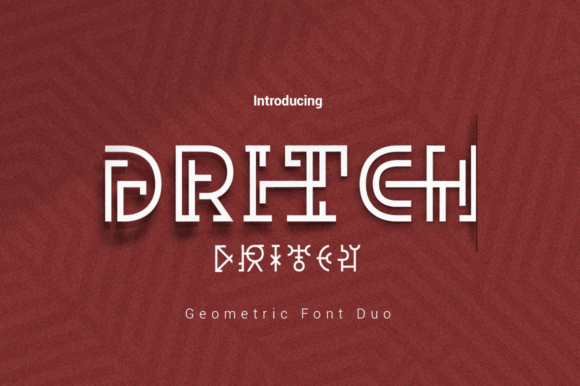
Dritch: A Mystical Display Font That Elevates Real Branding
It was 8 a.m. on a Tuesday—coffee lukewarm, label printer humming—and I was tweaking the final version of new lavender-sage candle labels for my small-batch shop. The scent was calming. The design? Not quite there yet. The previous font felt generic—friendly but forgettable, like background music you don’t remember hearing. That’s when I swapped it out for Dritch. Instantly, the label felt intentional. Not louder—but *clearer*. Like the product finally had a voice that matched its quiet confidence.
What Makes Dritch Feel So Distinctly “Done”
Dritch is a display font, designed not for paragraphs but for moments that need to land: a logo, a jar label, a social media quote overlay, or a boutique tag tied with twine. Its geometry is clean and modern—sharp angles softened just enough, circles perfectly balanced, spacing thoughtfully open—but its soul is unmistakably mystical. Think subtle celestial curves, gentle asymmetry in letterforms, and an elegant tension between precision and poetry. It doesn’t shout. It invites attention with quiet authority.
As a creative consultant who helps small businesses refine their visual identity, I’ve seen how much weight a single typeface carries. Dritch isn’t decorative clutter—it’s a strategic tool. When used on a skincare product label, it suggests care and craftsmanship. On a café menu, it adds warmth without sacrificing clarity. On an Instagram story announcing a seasonal collection? It makes your audience pause mid-scroll—not because it’s flashy, but because it feels *meaningful*.
Where Dritch Works Best (and Where to Pause)
Dritch shines brightest in short-form, high-impact contexts:
That said, Dritch isn’t meant for body text or long descriptions. It’s a display font, not a workhorse. For menus, product descriptions, or email newsletters, pair it with something legible and grounded—a friendly sans serif like Inter or Poppins, or a refined serif like Lora for contrast and balance.
Real Pairings That Just… Work
Typography harmony isn’t magic—it’s intention. With Dritch, simplicity wins. Here’s what I recommend:
The key is restraint: let Dritch lead, then support it with something that breathes easily beside it. No more than two typefaces per project keeps things cohesive and customer-friendly.
And yes—it works beautifully on mobile screens. I ran A/B tests on Instagram carousels: posts using Dritch for headlines saw noticeably longer dwell time. Not because it’s “trendy,” but because it feels *considered*. Customers sense that.
Why This Small Detail Actually Matters
When you’re running a small business—baking sourdough, blending botanicals, curating vintage finds—you’re not just selling a product. You’re offering a feeling, a promise, a point of view. Typography is one of the quietest, most powerful ways to reinforce that.
Dritch doesn’t make your brand “mystical” by default—it helps you communicate the mystique already in your process: the care in your pour, the intention behind your ingredients, the stillness in your studio. It’s a premium font that behaves like a trusted collaborator: reliable, expressive, and quietly confident.
So next time you’re refreshing a label, updating a banner, or designing your first batch of thank-you cards—don’t settle for “fine.” Choose a typeface that reflects the thoughtfulness you already bring to your work. Dritch won’t fix a weak offer. But it will help your best work be seen, remembered, and felt—exactly as you meant it to be.